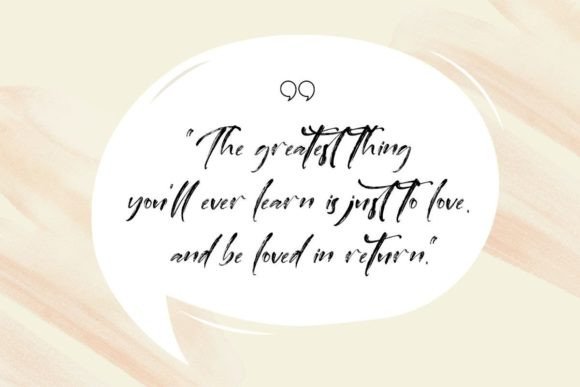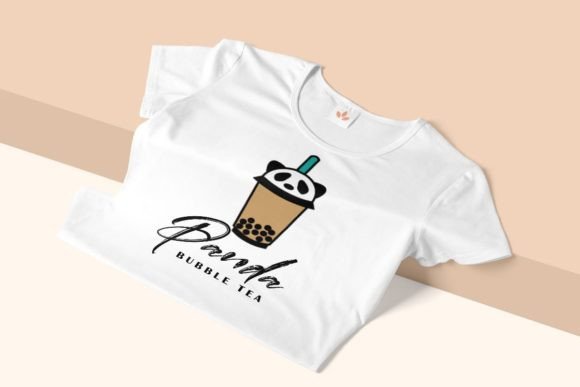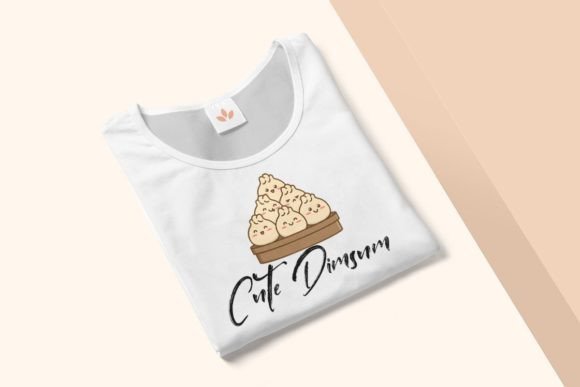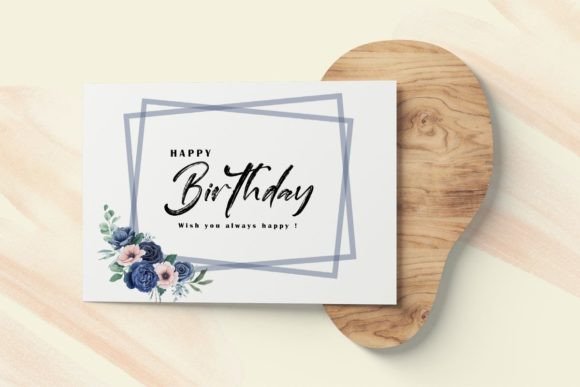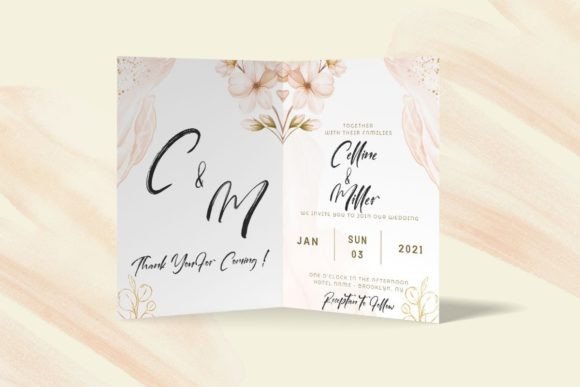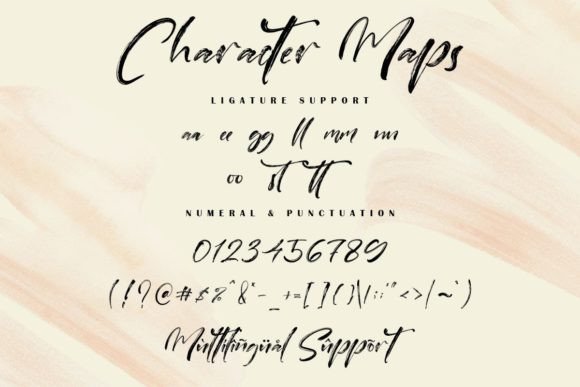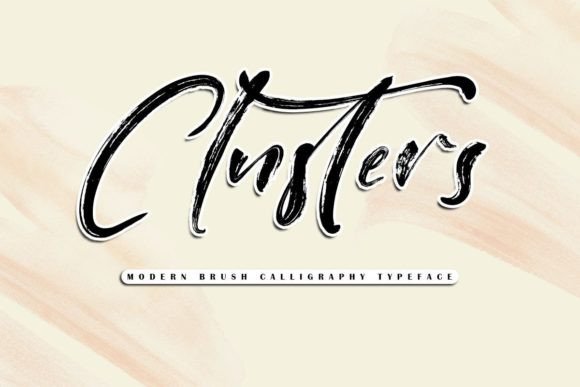
Introducing Clusters Font: Elevate Your Designs with a Modern Hand-Lettered Script
In the world of typography, a good font can make all the difference in a design. If you’re a designer or crafter looking for a unique and eye-catching script font, look no further than Clusters Font. This modern hand-lettered script font boasts a playful yet elegant style that’s sure to add a touch of personality to your next project.
What Sets Clusters Font Apart
Clusters Font is not your average script font. Its modern design and hand-lettered style give it a distinctive look that’s both elegant and playful. The effect of the strokes is particularly noteworthy, adding a level of visual flair that’s hard to match. Whether you’re working on a logo, branding materials, or any other design project, Clusters Font is the perfect choice.
Key Features of Clusters Font
- Modern Hand-Lettered Script Font: Clusters Font features a unique and stylish hand-lettered design that’s perfect for a wide range of design projects.
- Playful yet Elegant: The font’s playful style is balanced by an air of elegance, making it suitable for both fun and professional designs.
- PUA Encoded: Clusters Font is PUA encoded, which means you can easily access all of the amazing glyphs and ligatures.
- Easy to Use: With Clusters Font, you can add a pop of personality to your designs without needing extensive design experience.
The Benefits of Using Clusters Font
So why choose Clusters Font for your next design project? Here are just a few benefits of using this versatile script font:
- Adds Visual Interest: The unique strokes and hand-lettered style of Clusters Font add a level of visual interest that’s sure to capture attention.
- Versatile: Clusters Font is suitable for a wide range of design projects, from logos and branding materials to social media graphics and more.
- Easy to Read: Despite its playful style, Clusters Font is easy to read, making it perfect for designs that require a bit of flair but still need to be legible.
- Customizable: With PUA encoding, you can easily access and customize the glyphs and ligatures to fit your design needs.
Who Can Benefit from Clusters Font?
Clusters Font is perfect for a variety of designers and crafters, including:
- Graphic Designers: Add a touch of elegance and playfulness to your designs with Clusters Font.
- Logographers: Create unique and memorable logos with Clusters Font’s stylish hand-lettered design.
- Branding Experts: Use Clusters Font to add a pop of personality to your branding materials and make your clients stand out.
- Crafters: Whether you’re making DIY projects or selling your wares online, Clusters Font is a great choice for adding a personal touch.
How to Get the Most Out of Clusters Font
To get the most out of Clusters Font, here are a few tips:
- Experiment with Different Sizes: Clusters Font looks great in a variety of sizes, so don’t be afraid to experiment and find the perfect fit for your design.
- Play with Colors: The hand-lettered style of Clusters Font lends itself well to bold and bright colors, so try out different color schemes to add visual interest.
- Mix and Match: Don’t be afraid to combine Clusters Font with other fonts to create a unique and eye-catching design.